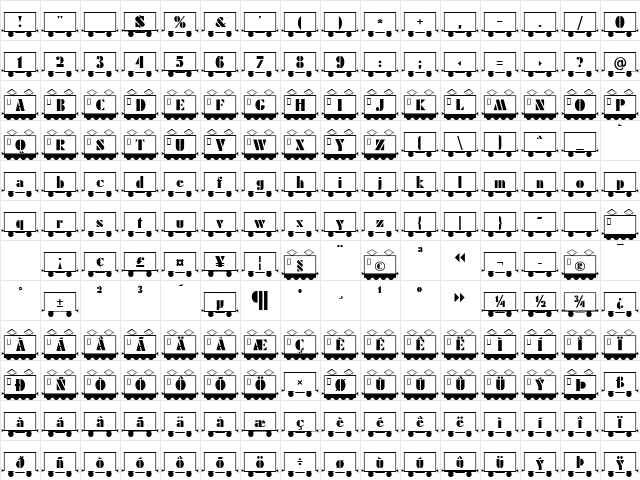
TrainWhite Becker Normal
Design Context for TrainWhite Becker
TrainWhite Becker is a composed and adaptable typeface that performs quietly and consistently across a wide range of design contexts.